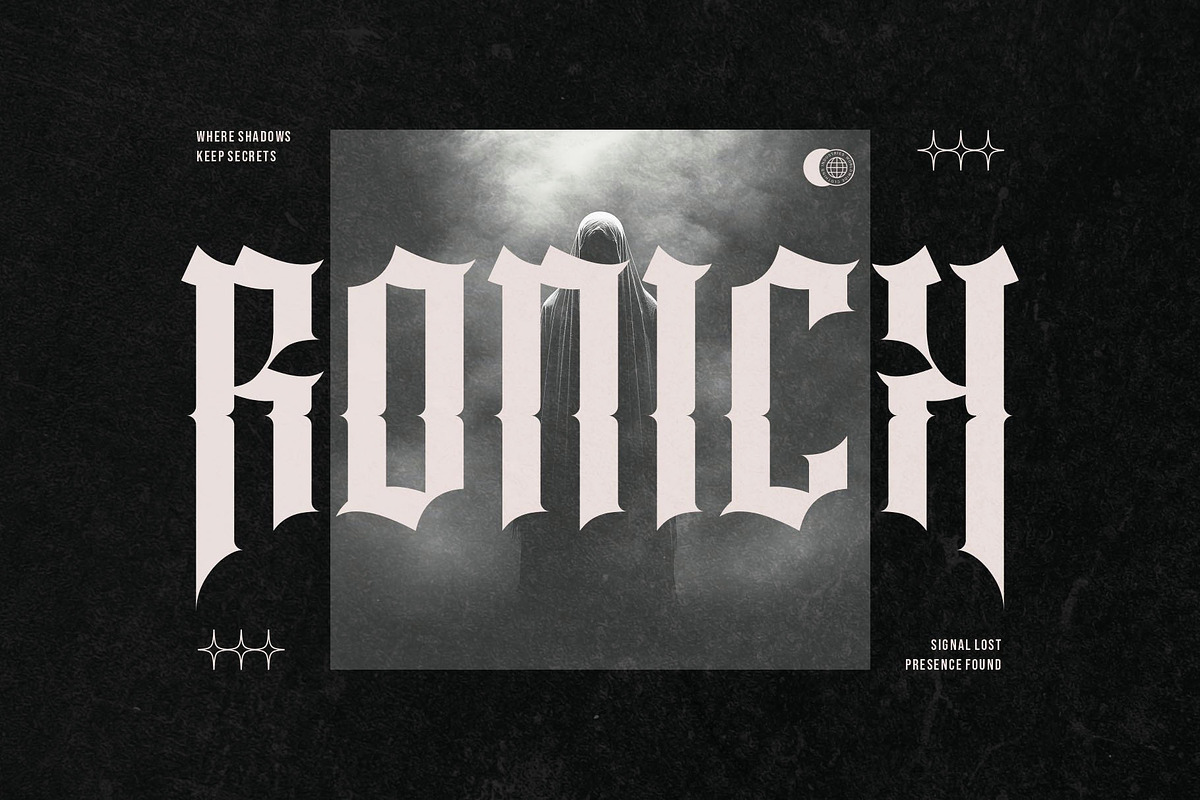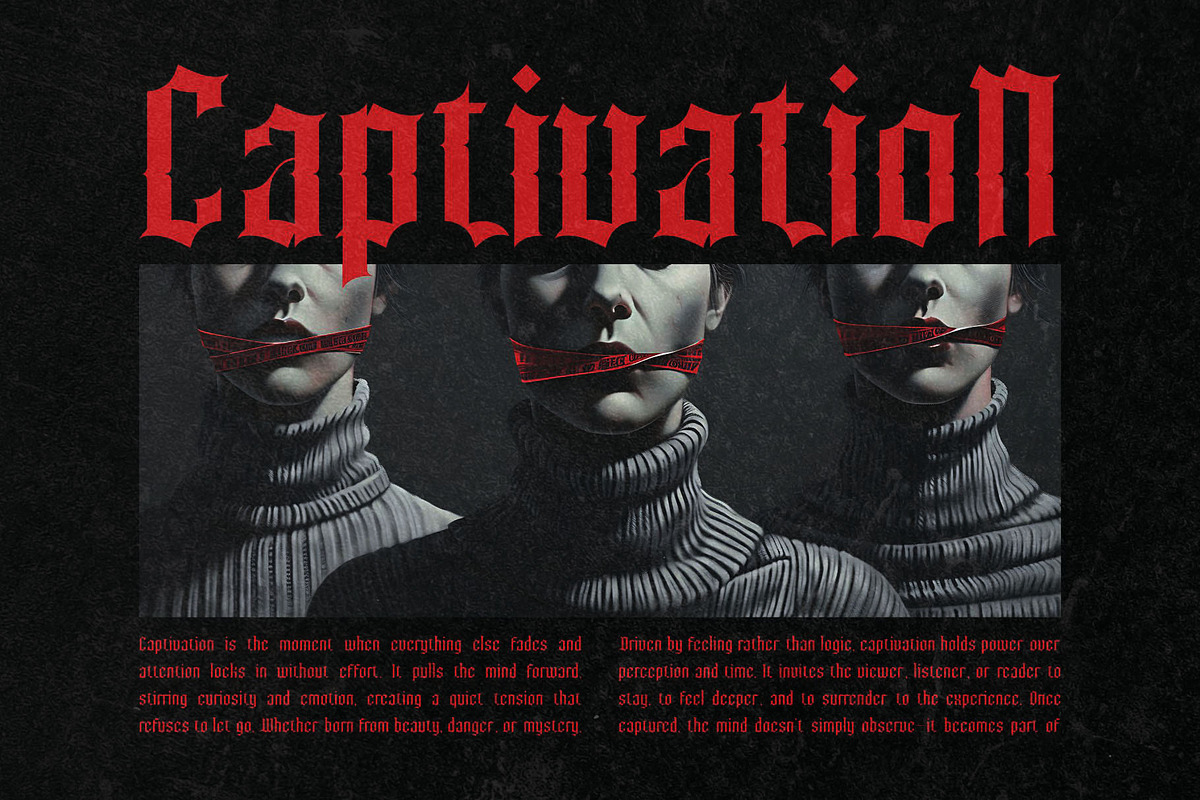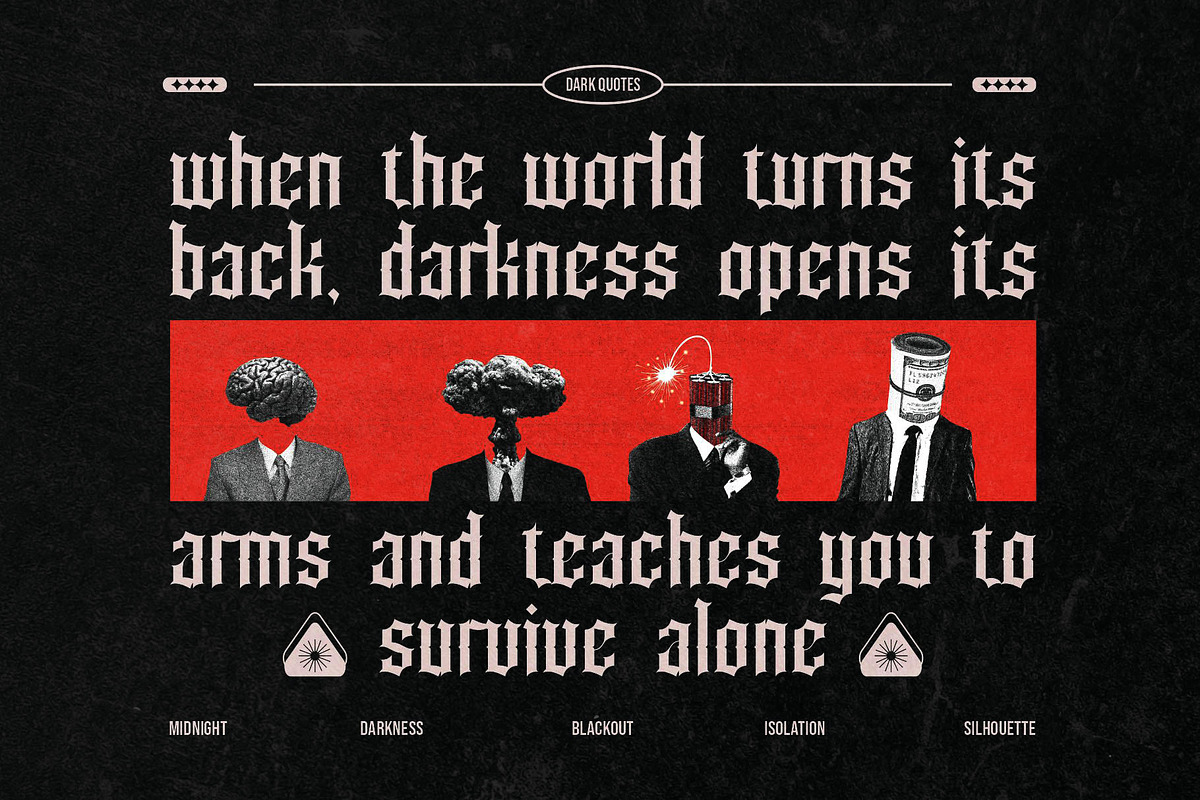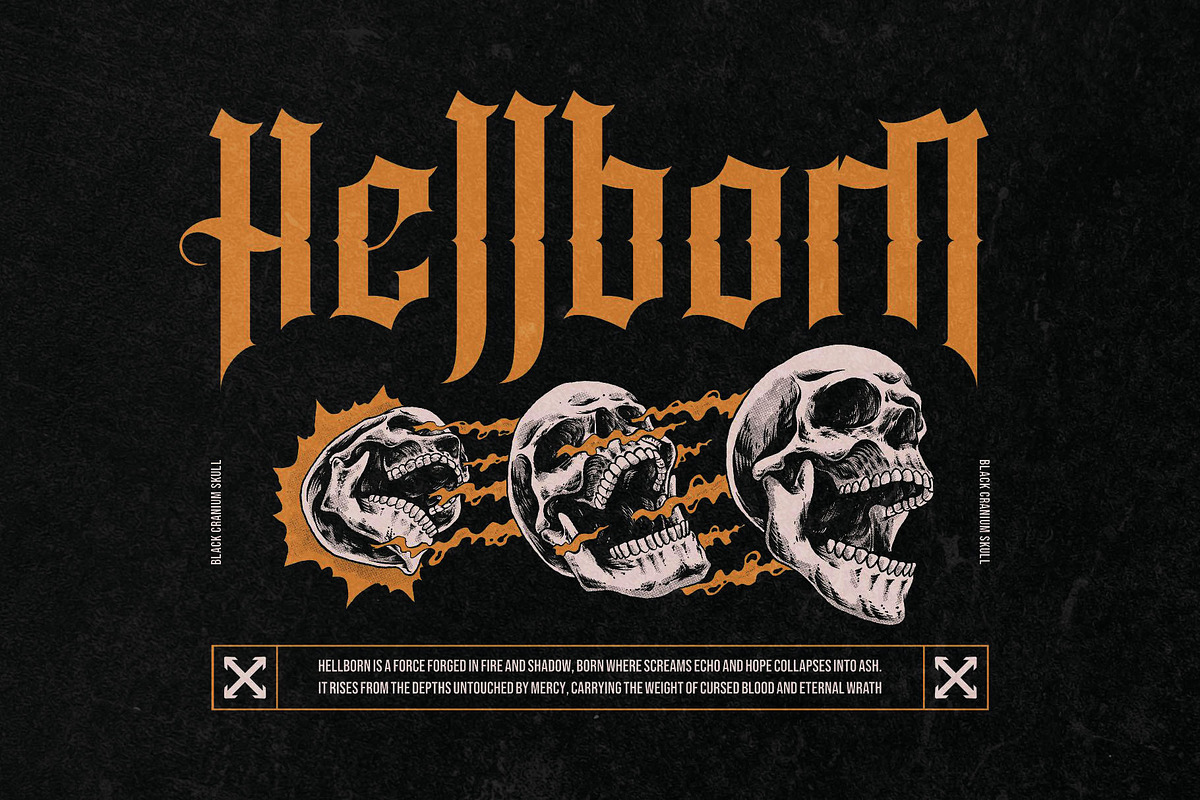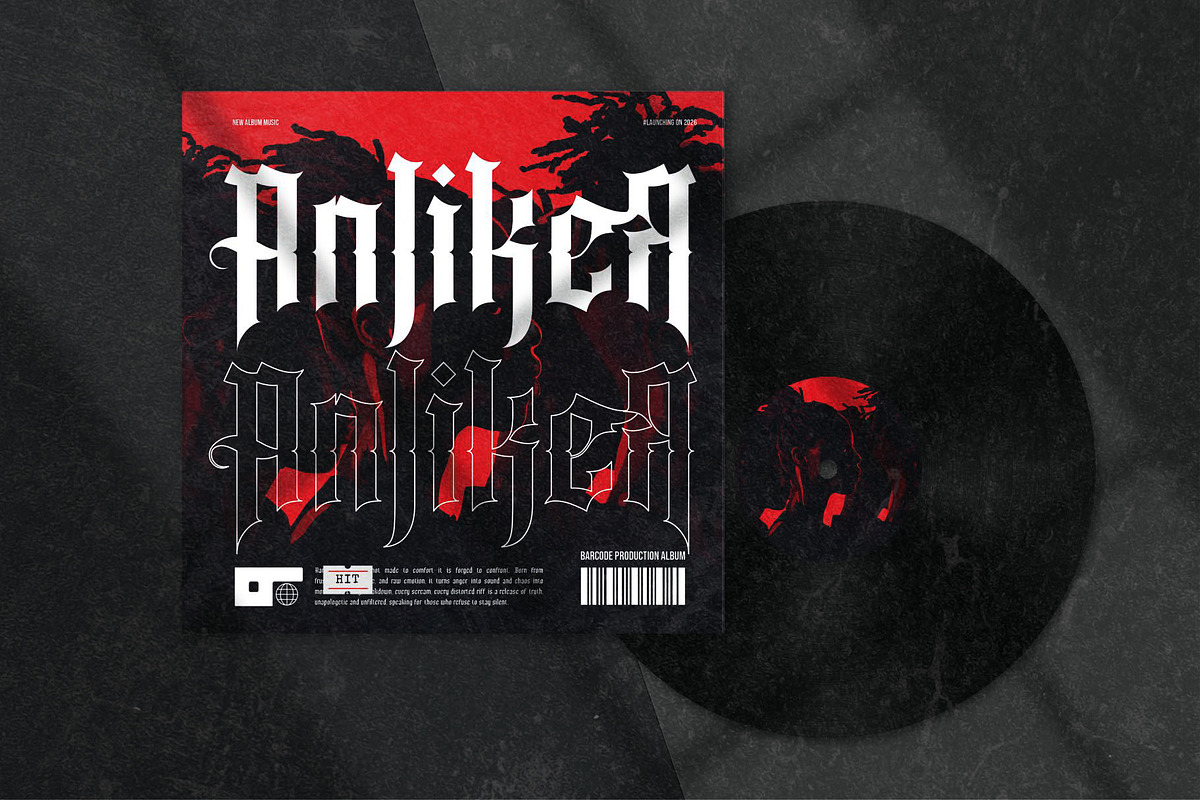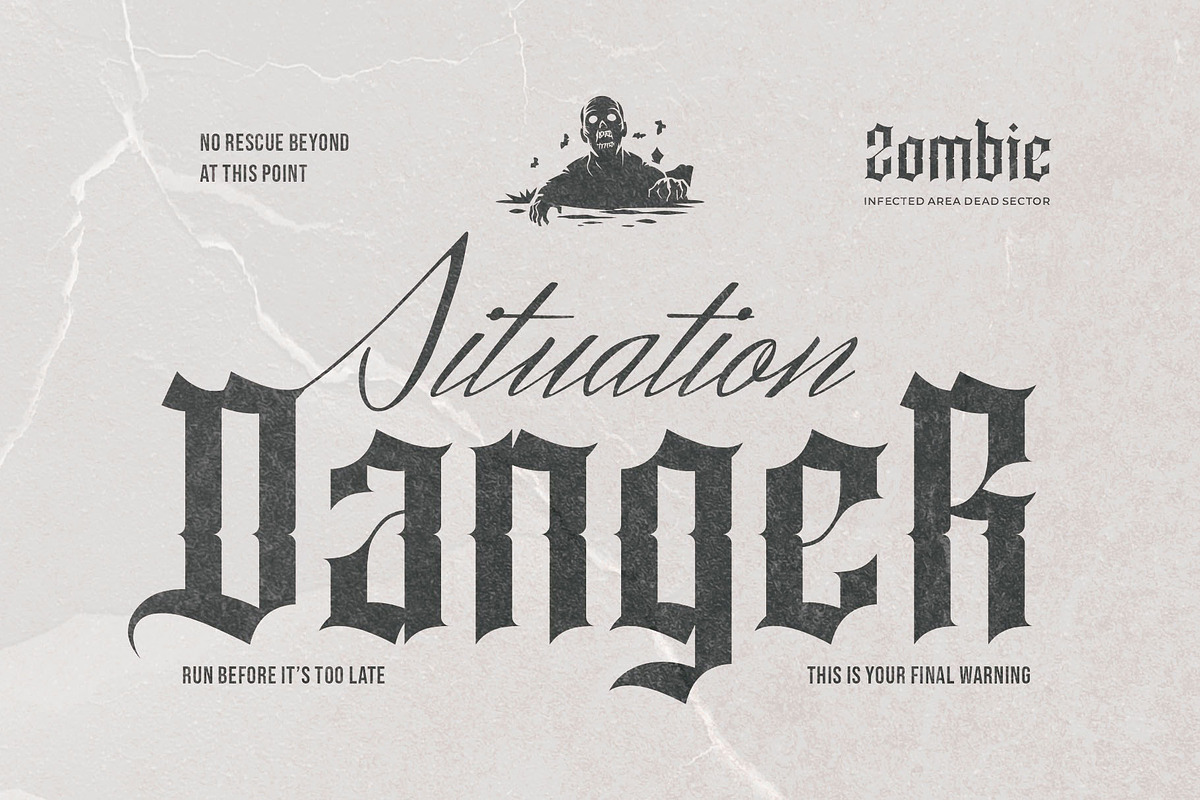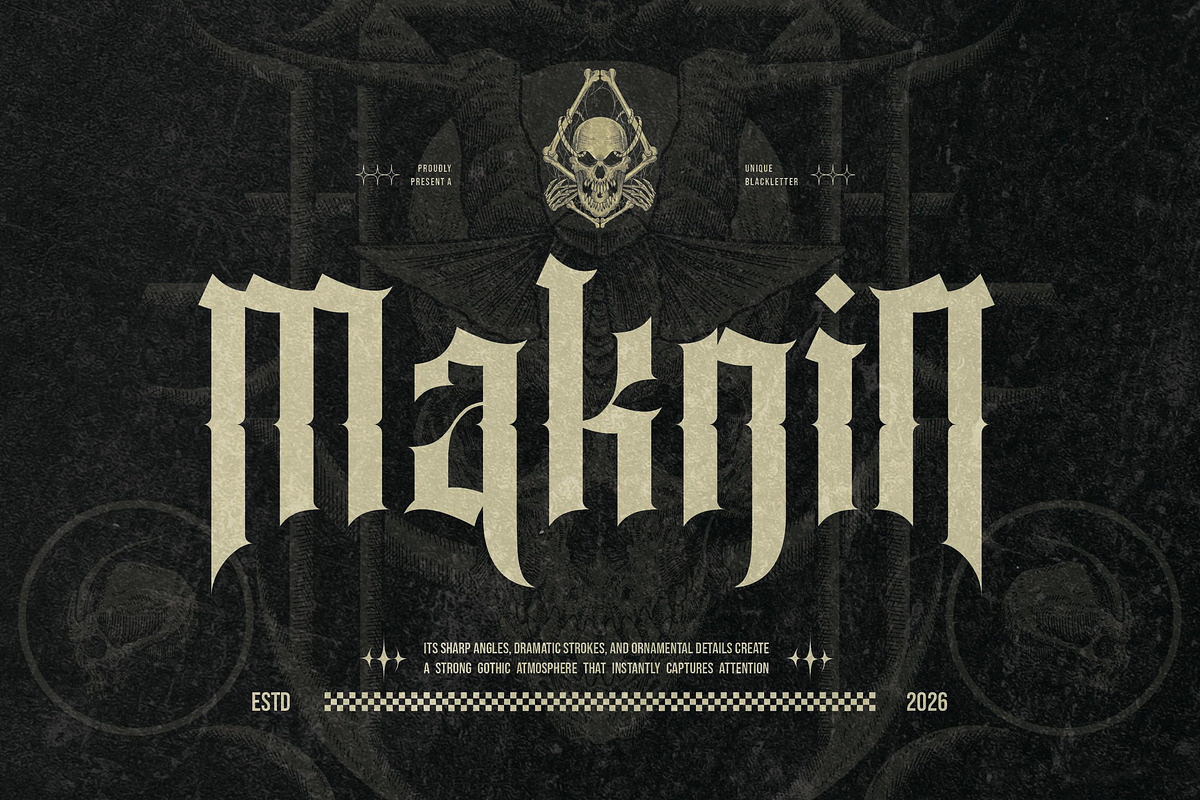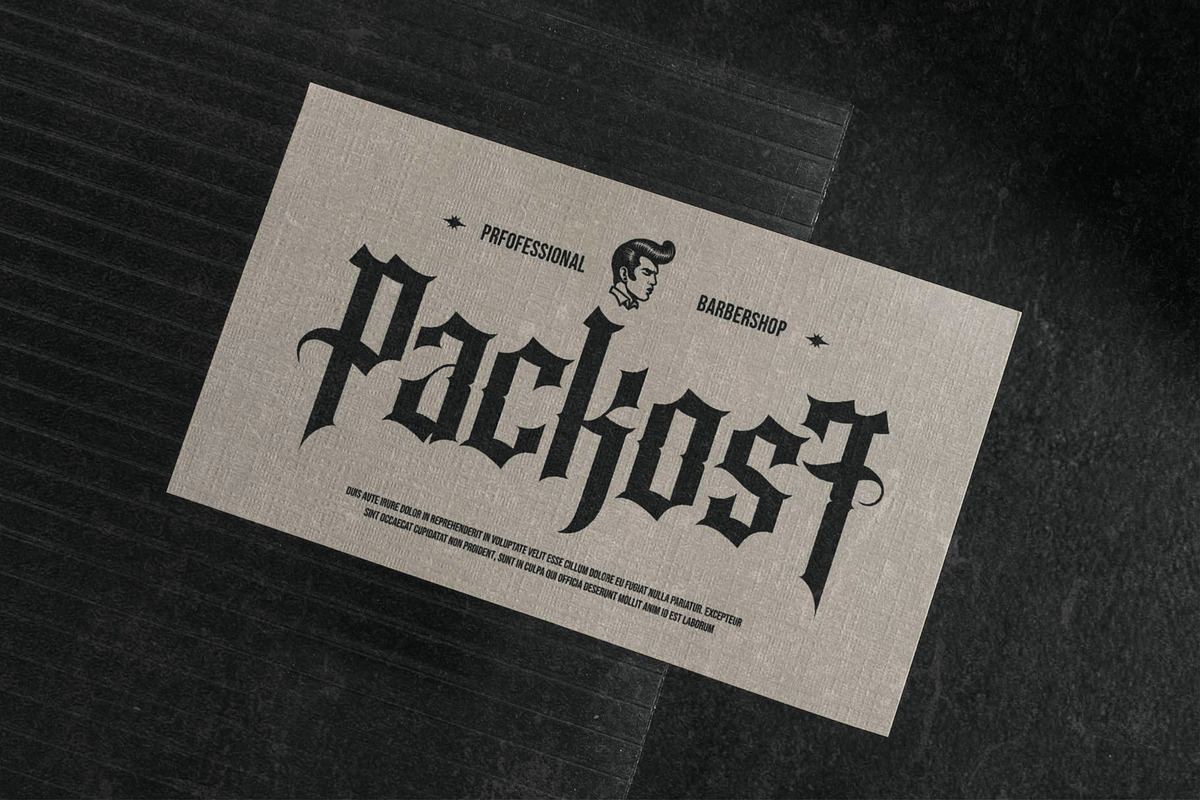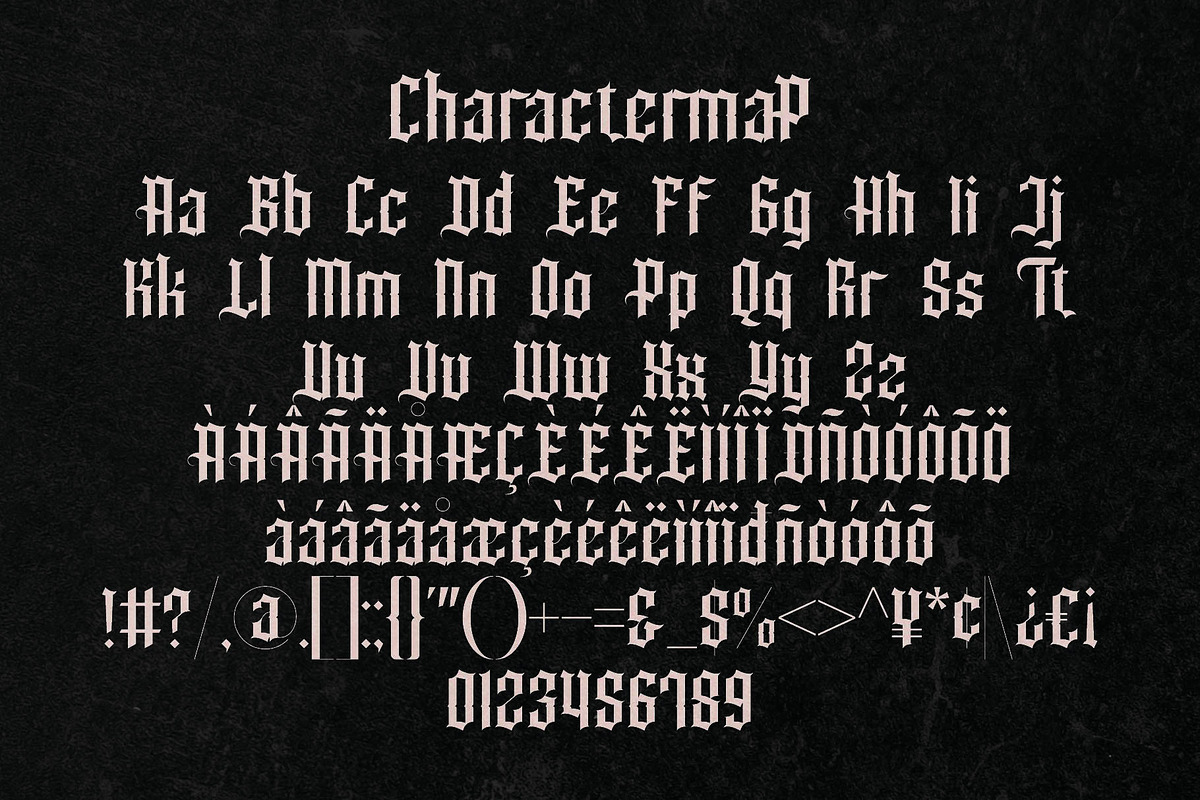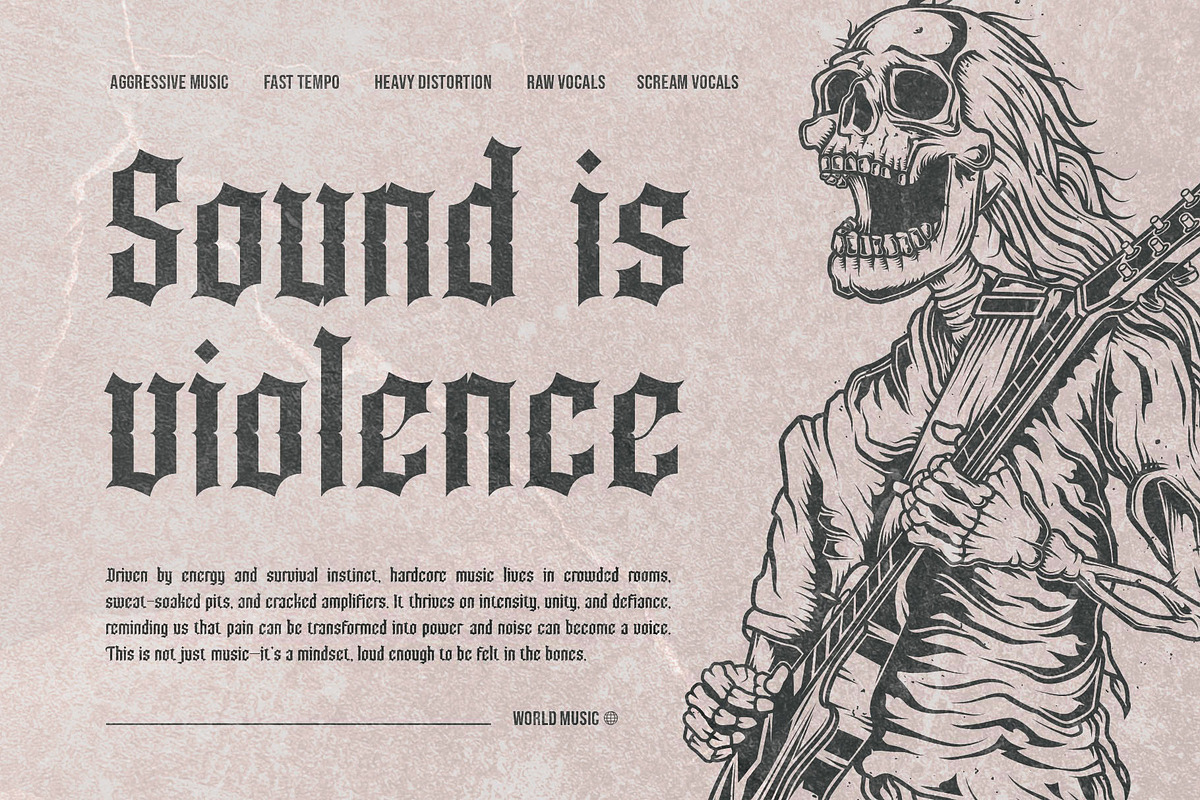
Maknin | Dark and Gothic Blackletter
Maknin blackletter is a dark and gothic font type for all branding and logo designs. This dark and gothic blackletter font has a beautiful character. This font is suitable for invitation card designs, cool logos, movie titles, movie names, business cards, book titles, brand names, and various other designs. Maknin blackletter is a smooth blackletter font that exudes sophistication and the moment. Its stylish alternate make this font a perfect partner for any project.